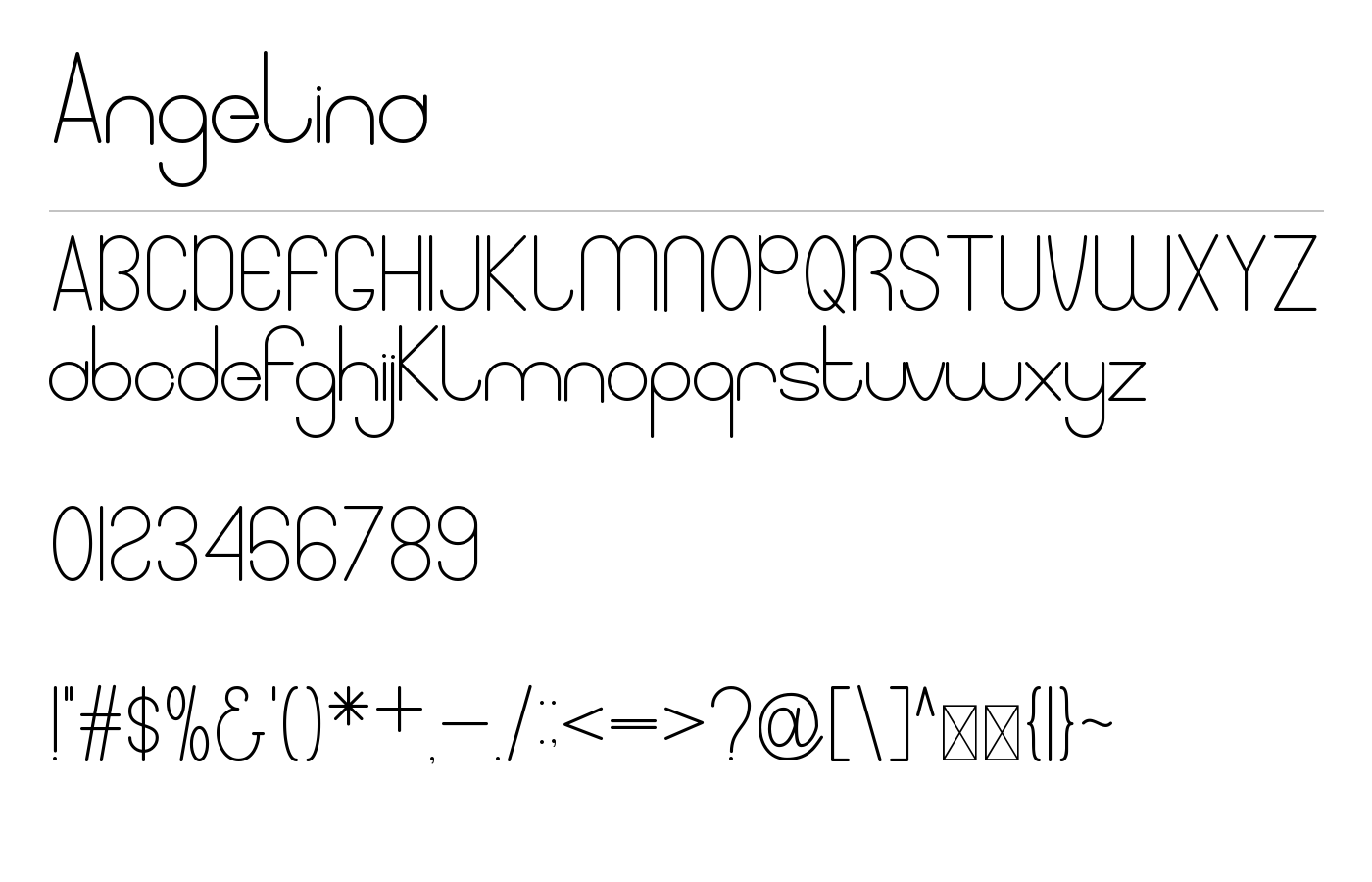
Angelina is a delicate and elegant sans serif font characterized by its thin, clean lines and narrow letterforms with a high x-height, giving it a modern and airy feel. Its unique, slightly playful curves combined with geometric simplicity make it ideal for stylish headlines, branding, and projects that require a refined yet approachable look. This font works best in fashion, beauty, and creative industries where a touch of sophistication and friendliness is desired.
Angelina Font
| Font family | Angelina Font |
| Designer | Anjas cov cava lera |